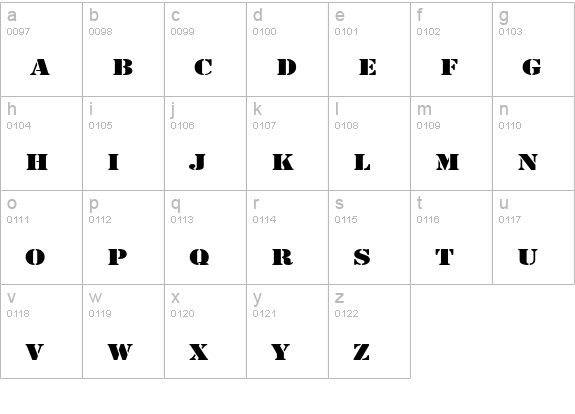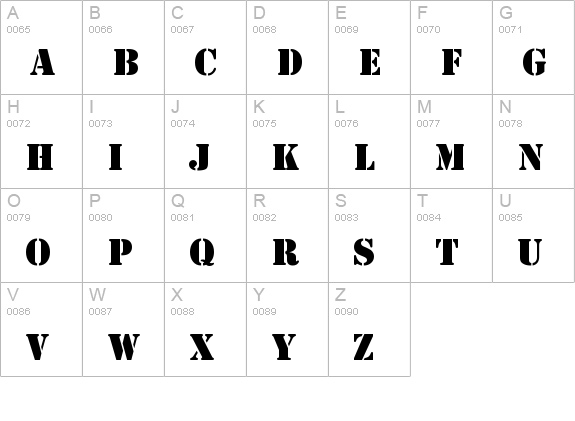
Stencil Regular is the standard, neutral variant in the Stencil typeface family \xE2\x80\x94 well suited to general body text, paragraphs, and standard typographic work.
The Stencil Regular font is a versatile and modern typeface that combines classic stencil elements with a contemporary twist. With its clean lines and bold presence, this font is perfect for creating eye-catching designs for a variety of projects. Whether you're working on branding, packaging, or editorial design, Stencil Regular will add a touch of sophistication and style to your work. What's even better is that Stencil Regular is available for free download at FontsMarket.com. This means you can easily access this high-quality font and use it in your projects without any cost. Don't miss out on this fantastic opportunity to enhance your designs with the timeless elegance of Stencil Regular. Download it today and start creating stunning visuals that will leave a lasting impression.